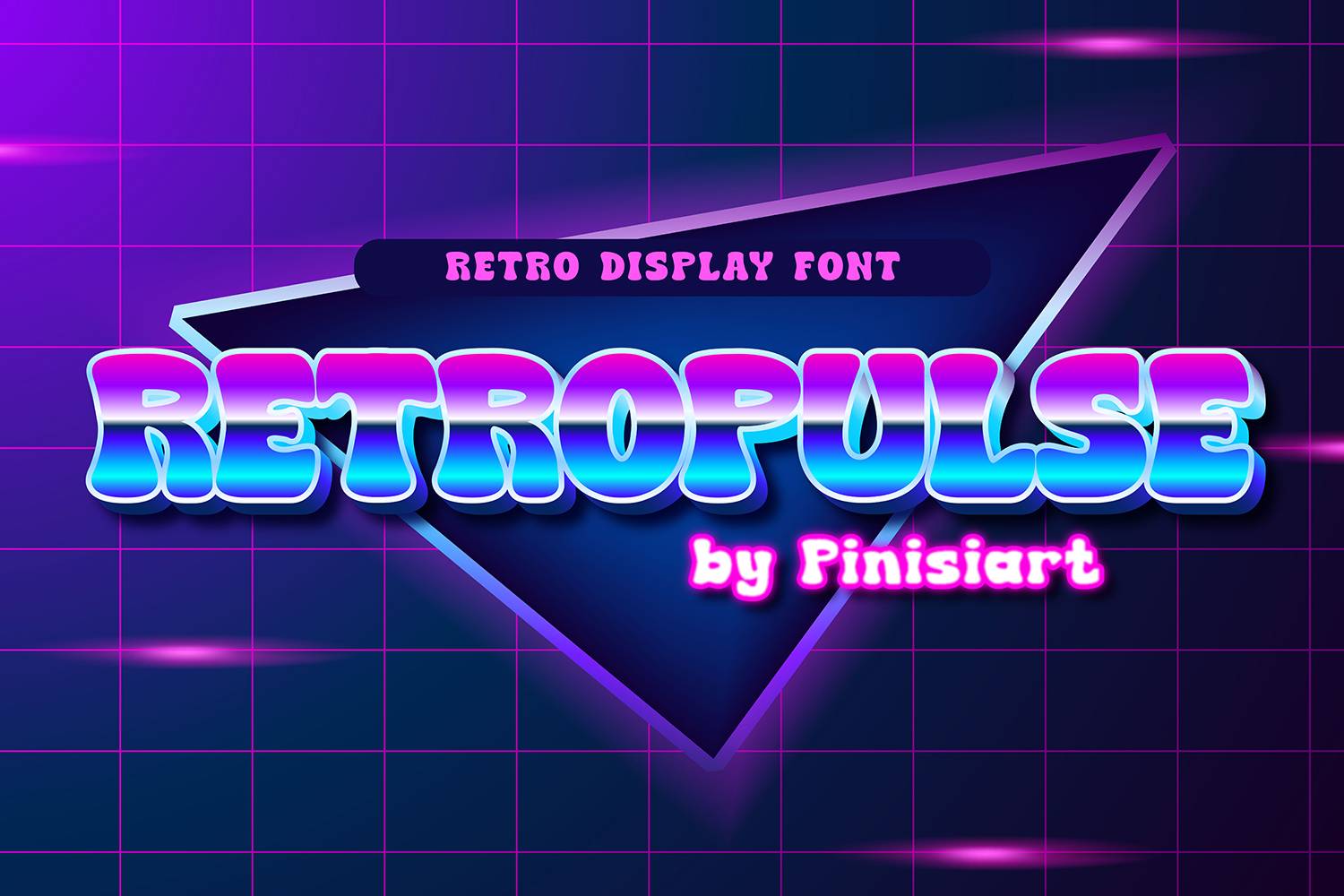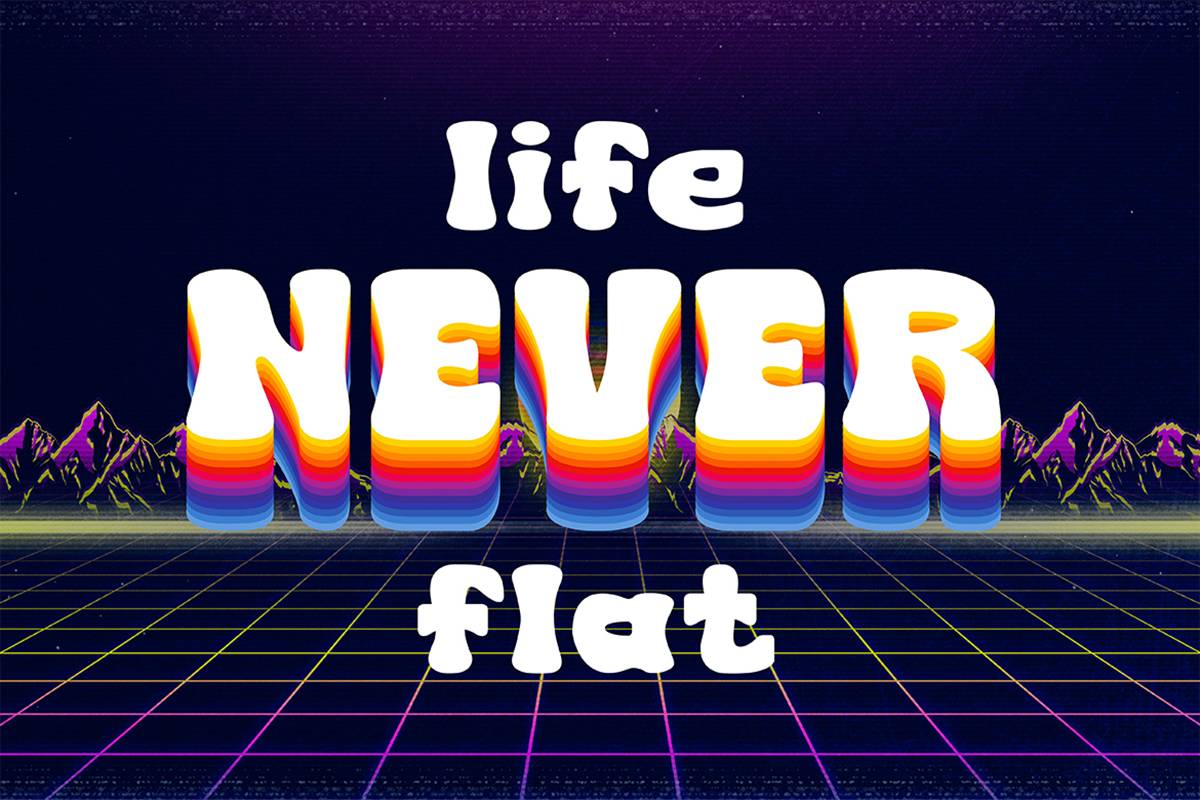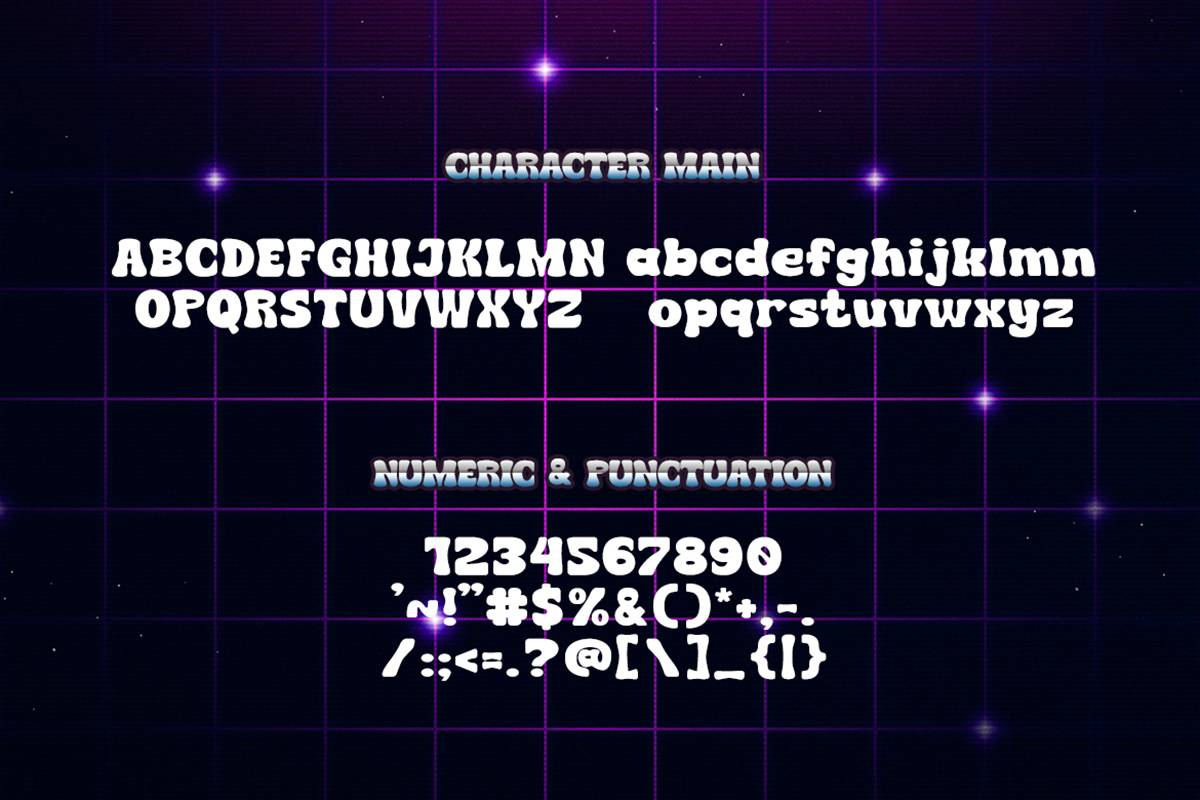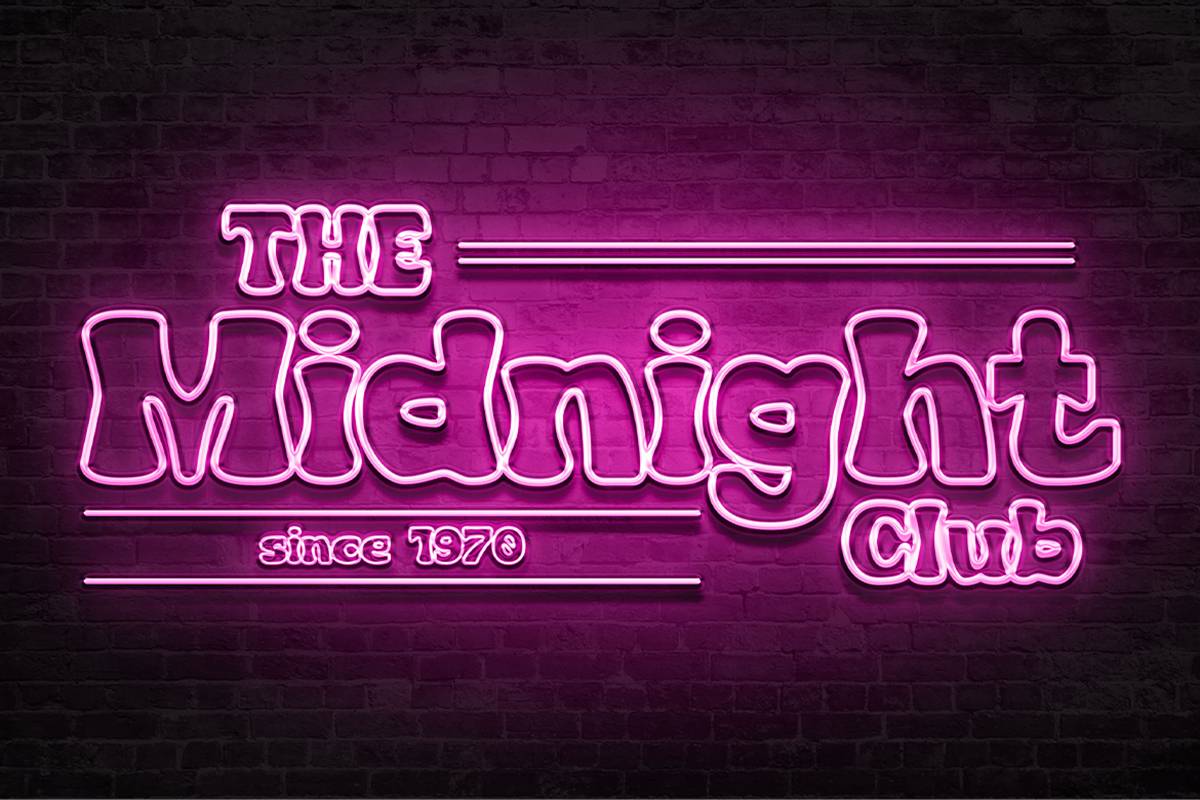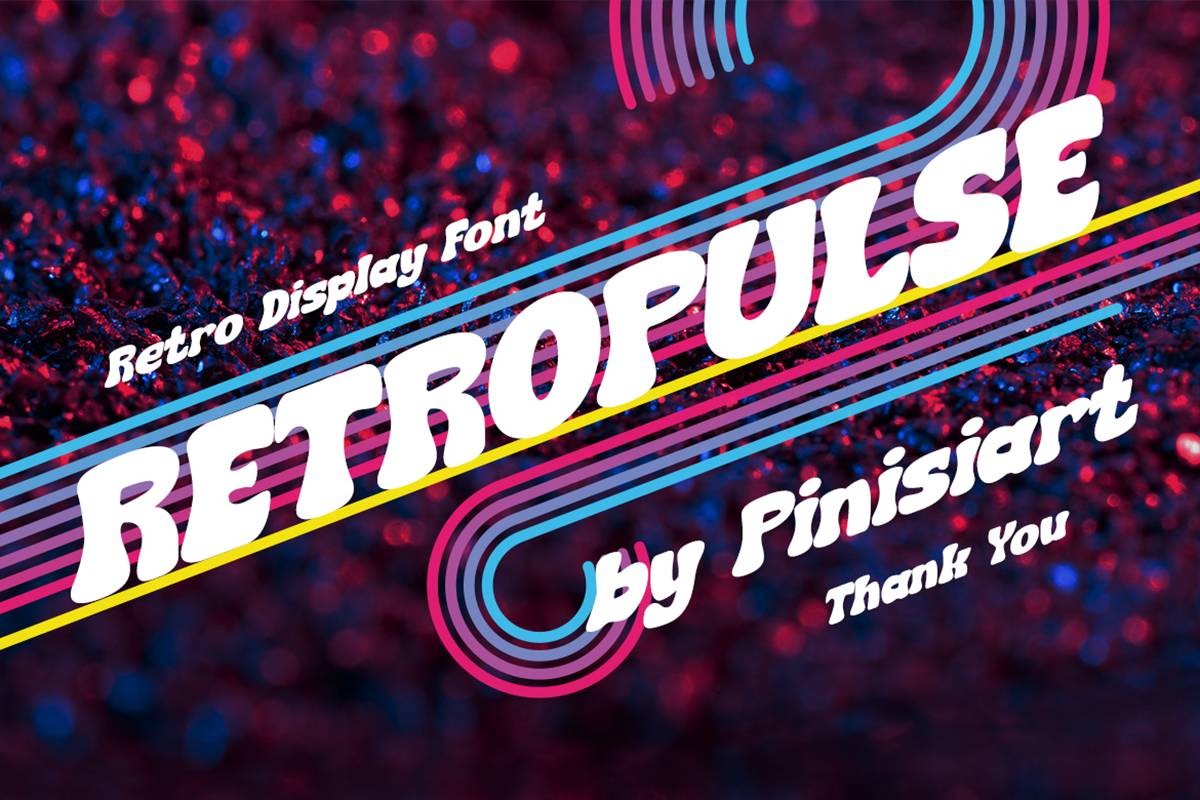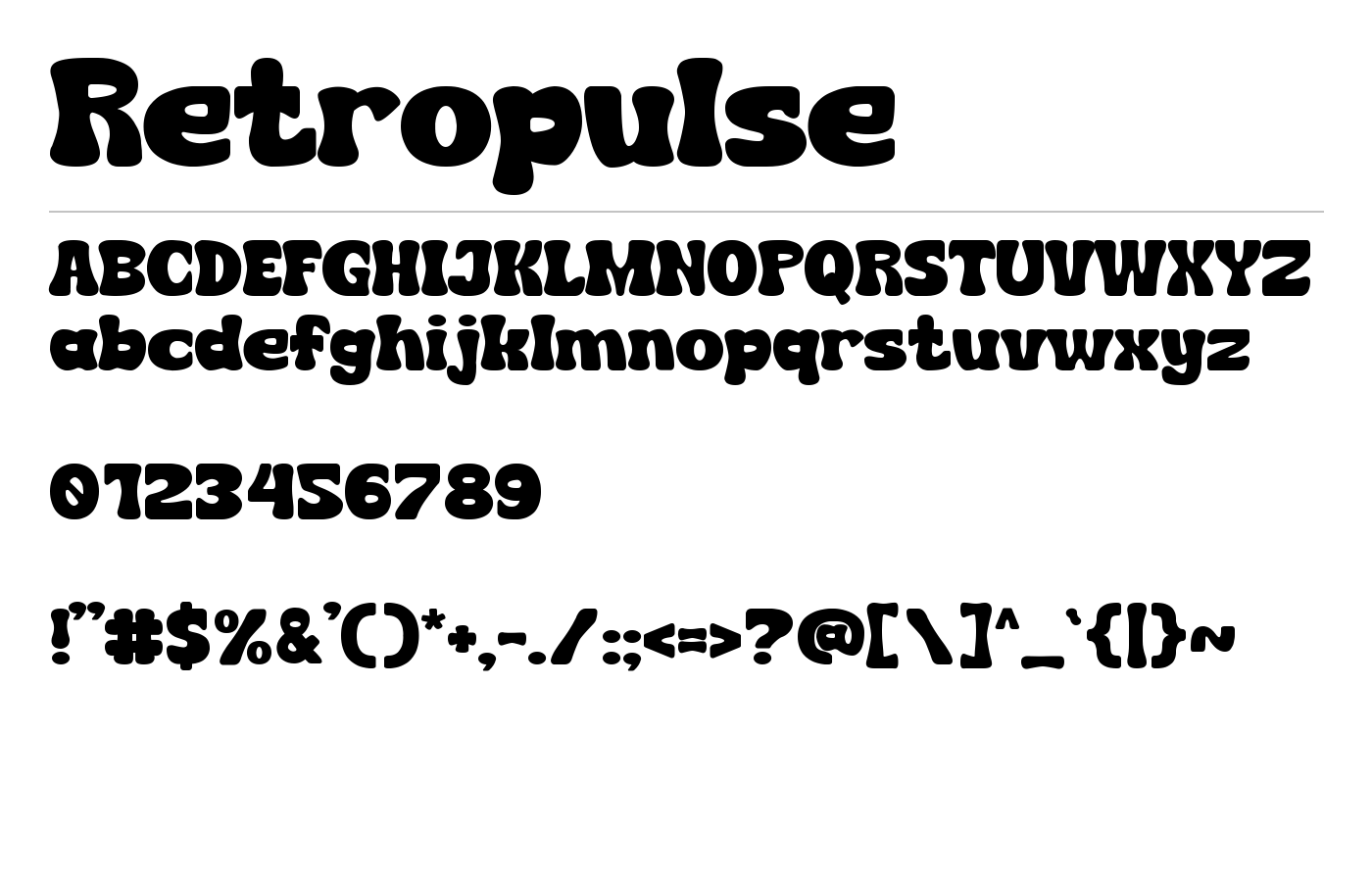
Retropulse is a bold, playful sans serif font with rounded, chunky letterforms that exude a fun and retro vibe. Its high x-height and thick strokes make it highly visible and perfect for eye-catching headlines, logos, or packaging that aim to convey a friendly and energetic personality. This font works especially well in creative and informal contexts where a vintage-inspired, approachable style is desired.
Retropulse Font
About Retropulse Font